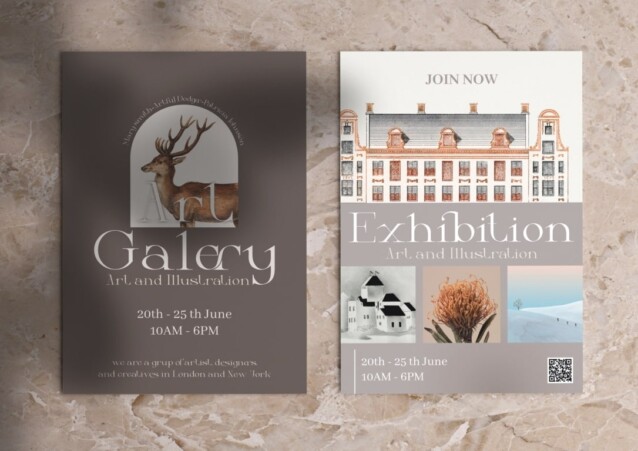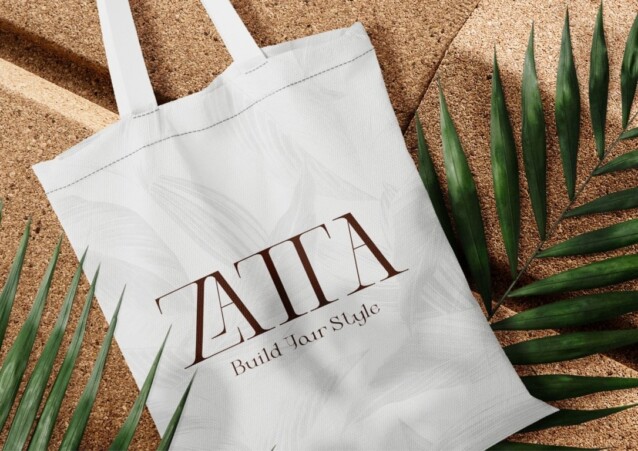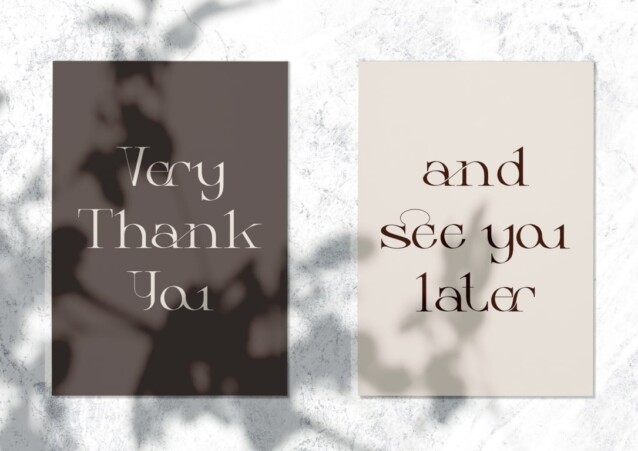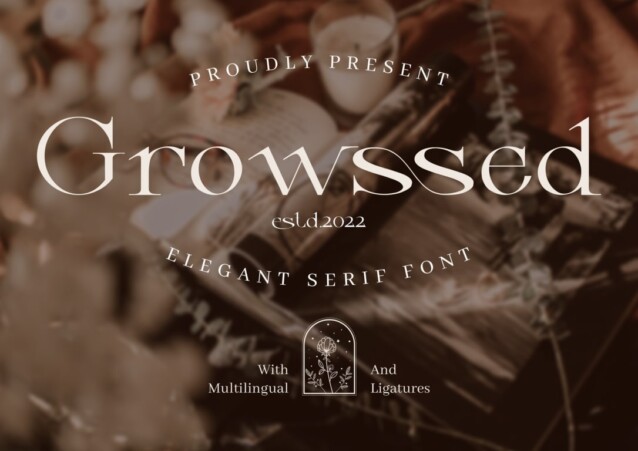
Growssed Font
Growssed Font is a chic & elegant display modern serif with beautiful contrast. It’s designed and shared by Nomlimofont. Presenting Growssed, a magnificent typeface that seamlessly merges the sleek and alluring attributes of a serif font with impeccably crafted ligatures, presenting a superb choice for crafting graceful and sophisticated designs. Allow us to introduce Growssed, a sublime typography masterpiece that flawlessly fuses the sophisticated and exotic characteristics of a serif typeface with exquisitely crafted ligatures, offering a remarkable option for creating elegant and refined designs.